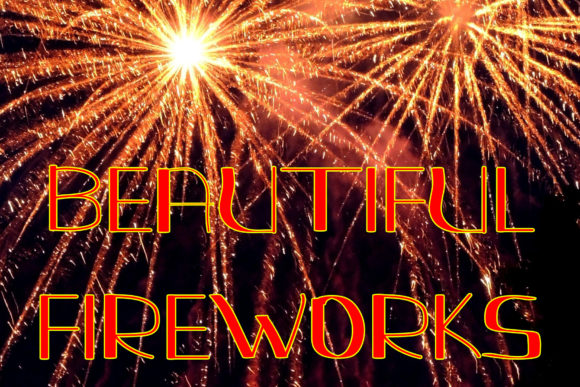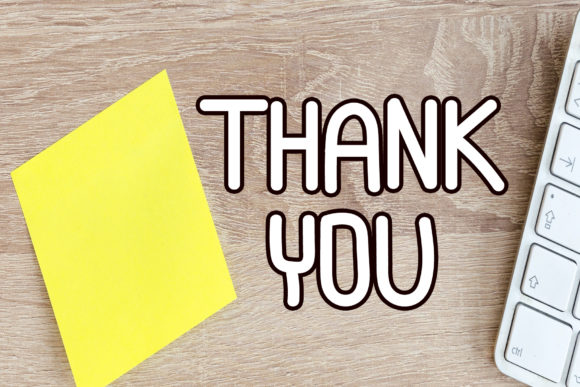
Happy New Year Font: The Perfect Choice for Your Creative Projects
As the clock strikes midnight on New Year’s Eve, we bid adieu to the old and welcome the new with open arms. The excitement and anticipation of a fresh start are palpable, and what better way to express this enthusiasm than with a font that’s just as vibrant and energetic? Introducing the Happy New Year Font, a modern and fun display font designed to elevate your creative projects to new heights!
A Font that Stands Out from the Crowd
The Happy New Year Font is not just another ordinary font; it’s a game-changer. With its unique and playful design, it’s sure to grab attention and leave a lasting impression on your audience. Whether you’re a designer, crafty DIY enthusiast, or simply someone who loves to express themselves through creative projects, this font is the perfect choice. Its modern and fun design makes it an excellent addition to any project, from party invitations and social media graphics to branding and advertising materials.
What Makes Happy New Year Font So Special?
So, what sets the Happy New Year Font apart from other fonts out there? Here are just a few reasons why it’s a cut above the rest:
- Unique Design: The Happy New Year Font boasts a one-of-a-kind design that’s both modern and fun. Its distinctive style is sure to make your projects stand out from the crowd.
- Versatility: This font is incredibly versatile and can be used for a wide range of projects, from digital to print.
- High-Quality: This font is designed with high-quality in mind, ensuring that it looks great in any project.
How to Use Happy New Year Font in Your Projects
Using the Happy New Year Font in your projects is easy! Here are a few ideas to get you started:
- Party Invitations: Create eye-catching party invitations that set the tone for your celebration.
- Social Media Graphics: Use the Happy New Year Font to create engaging social media graphics that grab attention.
- Branding and Advertising: Add a touch of fun and modernity to your branding and advertising materials with this font.
- Crafting Projects: Use the Happy New Year Font to add a personal touch to your crafting projects, such as handmade cards and gift tags.
Tips and Tricks for Getting the Most Out of Happy New Year Font
Here are a few tips and tricks to help you get the most out of the Happy New Year Font:
- Experiment with Different Sizes: Don’t be afraid to experiment with different font sizes to create visual interest.
- Pair it with Other Fonts: Pair the Happy New Year Font with other fonts to create a unique and eye-catching combination.
- Use it in Combination with Images: Use the Happy New Year Font in combination with images to create engaging and visually appealing graphics.
In conclusion, the Happy New Year Font is a modern and fun display font that’s perfect for designers and crafters looking to add a touch of excitement and energy to their projects. With its unique design, versatility, and ease of use, it’s an excellent choice for anyone looking to take their creative projects to the next level. So why wait? Download the Happy New Year Font today and start creating!